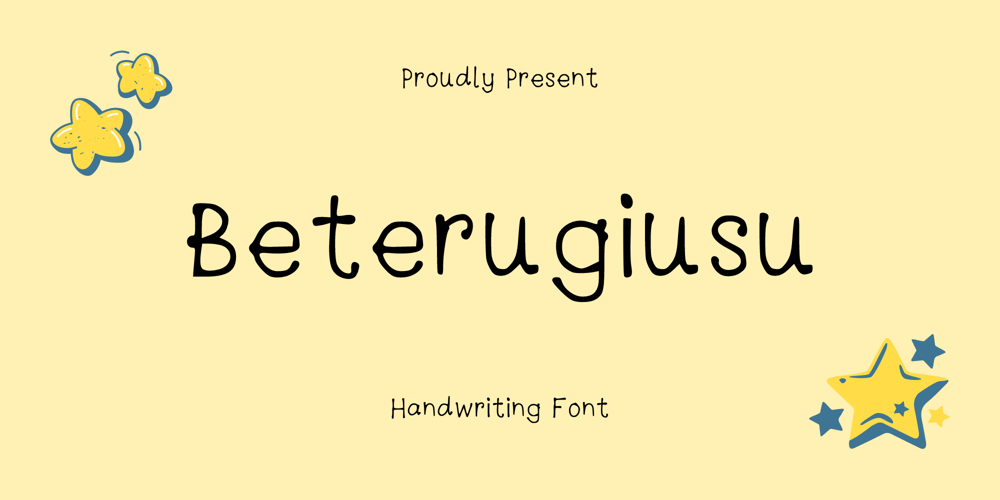
Beterugiusu Font Family was designed by published by Sidkia Fonts. Beterugiusu contains 1 styles and family package options. Beterugiusu is a sweet and friendly handwritten font. Its natural and unique style makes it incredibly fitting to a large pool of designs. The only limit is your imagination!